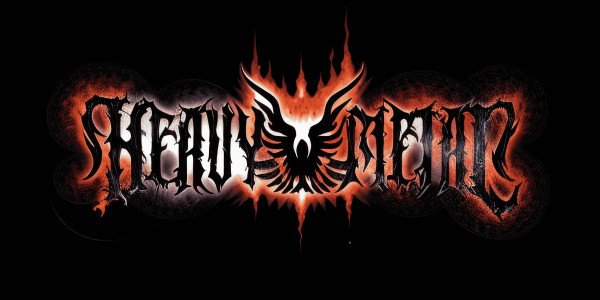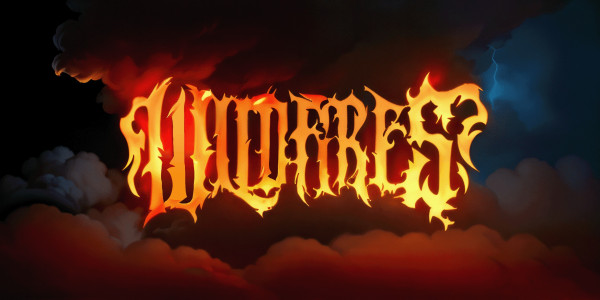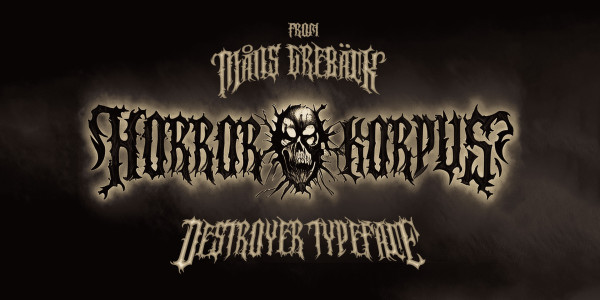
Horror Korpus Font
Horror Korpus Font is an artistic rebellion, a statement against the clean and the pristine. It is the indisputable choice for a heavy metal logo and horror movie posters, adding a fiery and dark dimension to your designs.
Write % after any word to make it into a symmetric logo.
Example: Monogram%
Use ( ) { } [ ] around any word to give it wings.
Example:
Use ¶ ¦ ‡ ¤ × ÷ ≠ ± ~ to make demonic symbols like devils and skulls.
Example: scary×movie